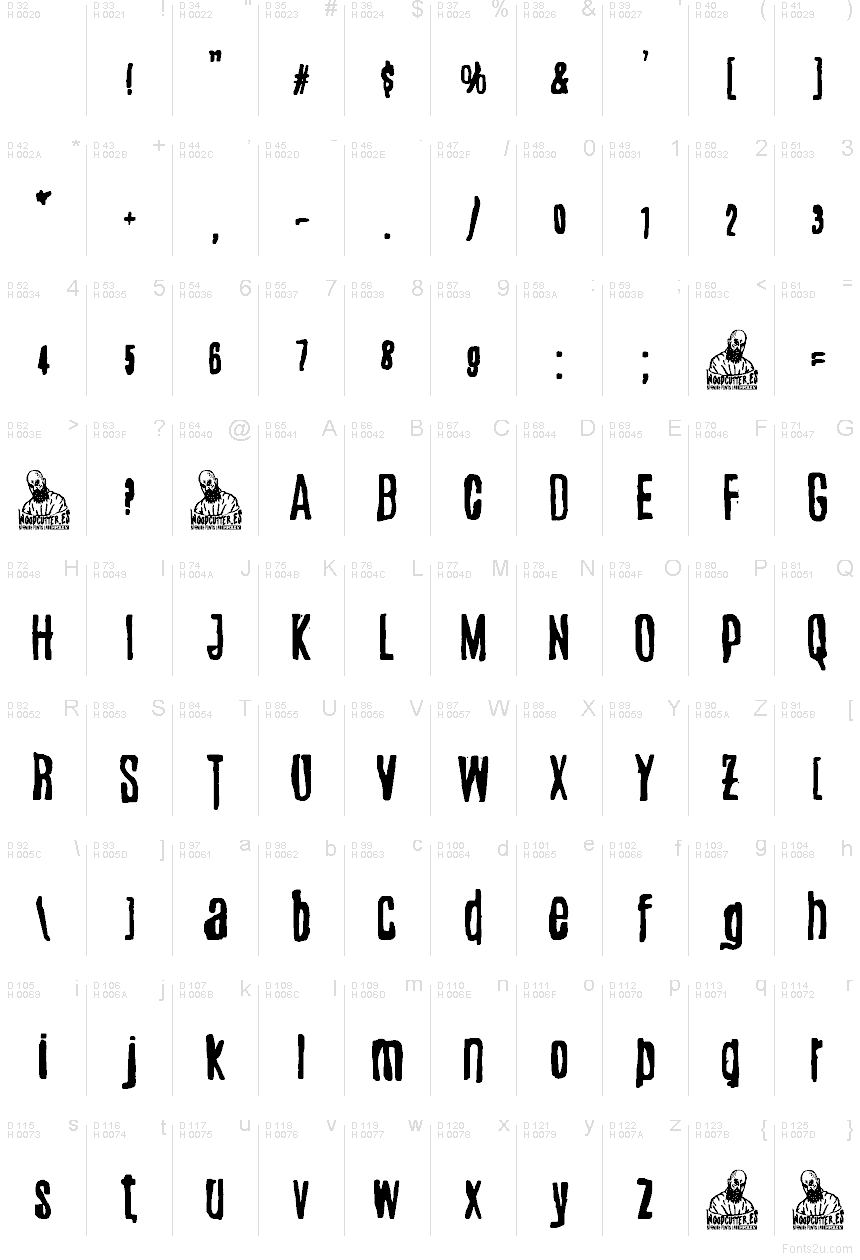
Drunk Painter
Drunk Painter font by Woodcutter is a free brush font that looks like it stumbled straight off a messy studio wall. The letters wobble and sag with inky weight, as if painted with a loaded, slightly unsteady brush, leaving dark pools and uneven edges that feel raw and human. There’s a scruffy rhythm to the shapes—loose, irregular, and a bit unhinged—that gives headlines a gritty, hand-done intensity instead of a polished, digital sheen.
Using Drunk Painter, you can give gig posters, zines, horror titles, underground event flyers, bar menus, album covers, and protest graphics a loud, chaotic voice that still reads clearly at larger sizes. This free font thrives when it’s big and bold, with plenty of breathing room around each word. Pair it with a plain, narrow sans serif for small supporting text so the wild brush texture stays the star of the layout.